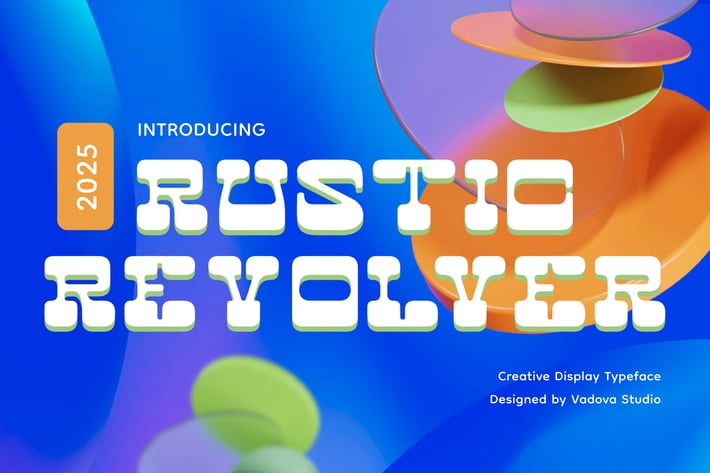
Rustic Revolver Creative Font
Rustic Revolver is a bold and creative display font packed with retro flair and modern playfulness. With its chunky forms, rounded edges, and funky letter shapes, this typeface is perfect for vibrant posters, artistic branding, eye-catching headlines, and colorful experimental designs. Rustic Revolver evokes a nostalgic yet fresh energy, ideal for projects that demand attention and creative freedom. Make your visuals pop with a typographic voice that's fun, fearless, and full of personality.